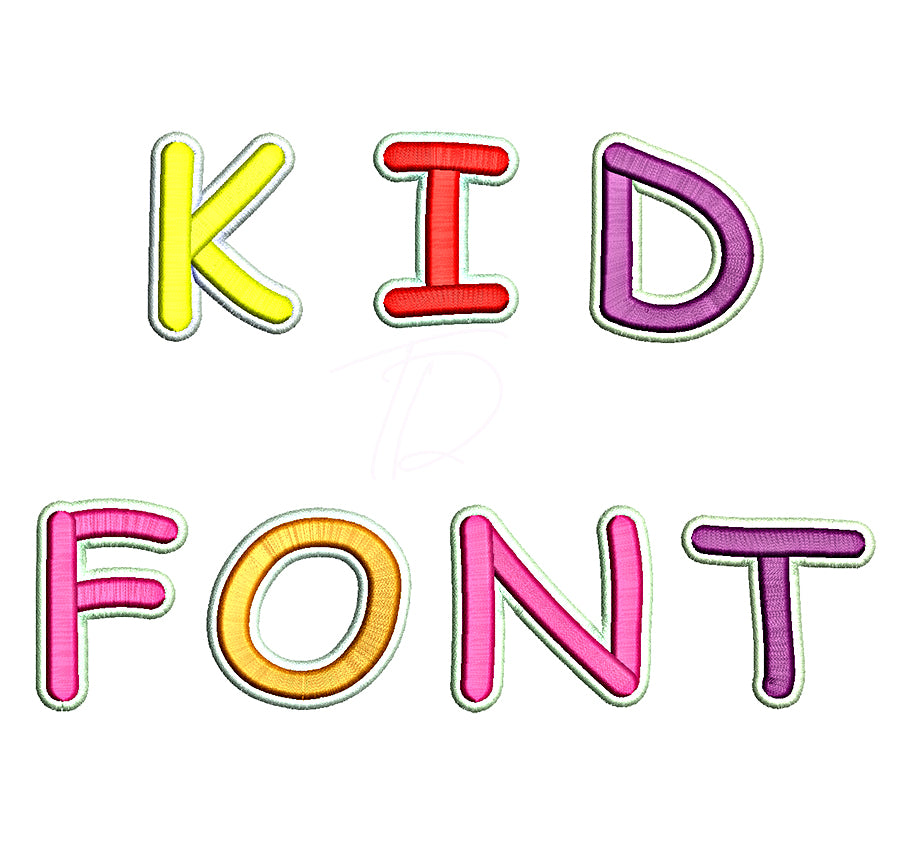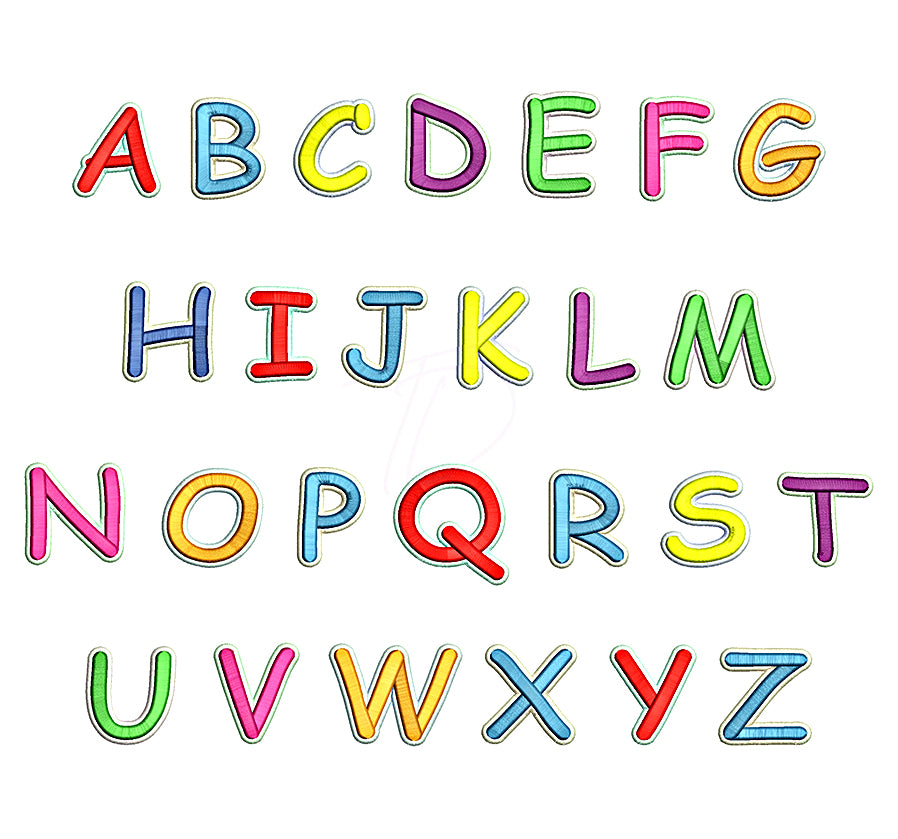
Kid 3D Puff Embroidery Font
Bring the fun to every stitch with the Kid 3D Puff Embroidery Font — a playful, chunky font designed specifically for 3D puff foam embroidery and made with little ones in mind! 🎈🧵⭐
With its rounded, bubbly letterforms, this font is perfect for children's apparel, backpacks, hats, personalized gifts, and anything that needs a dose of fun and personality. The bold shapes stitch up beautifully in puff foam for a soft, raised look kids will love.
- Optimized for 3D puff foam — higher stitch density and underlay included
- Includes full alphabet (A–Z, a–z) and numbers
- Best results at larger sizes (1" and above) for maximum puff effect
- Perfect for kids' hats, backpacks, jackets, onesies, and personalized gifts